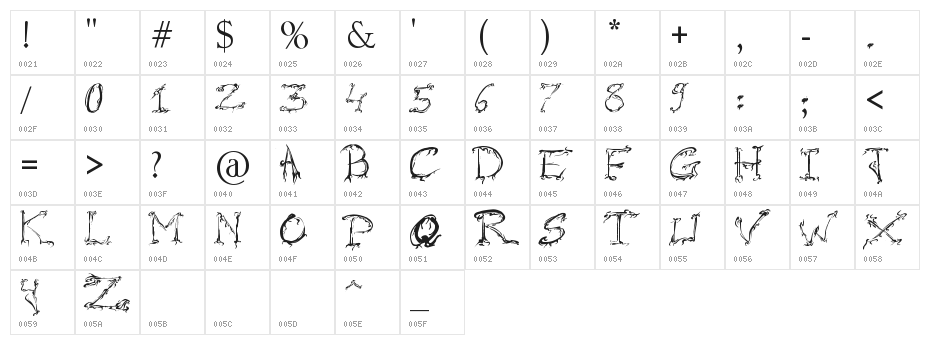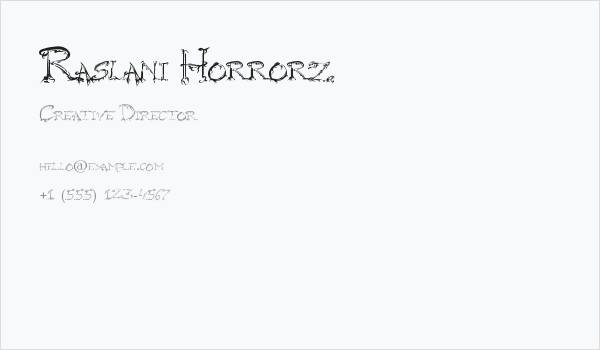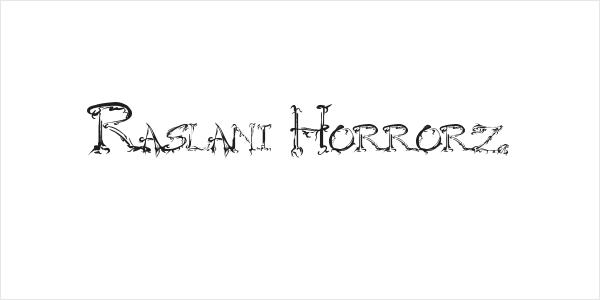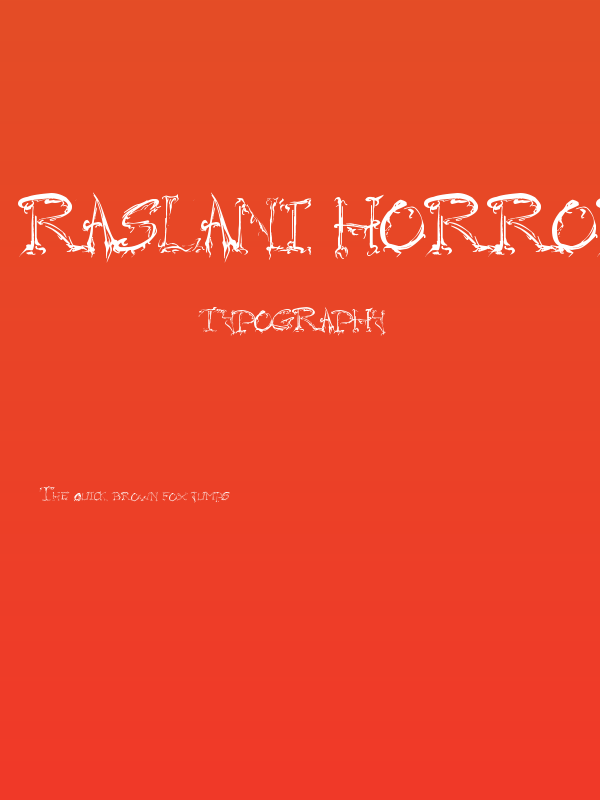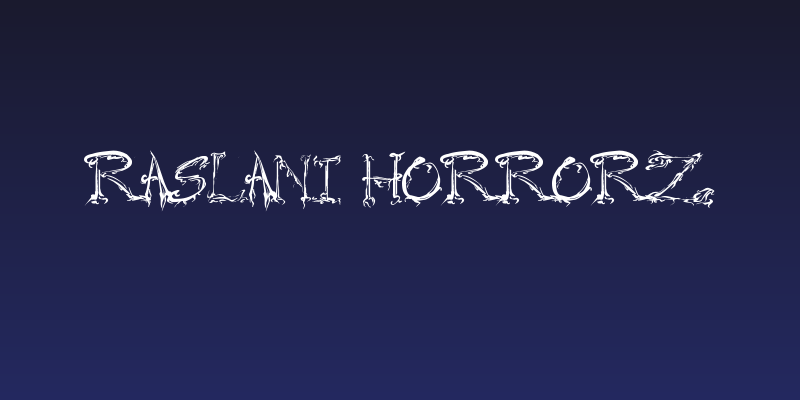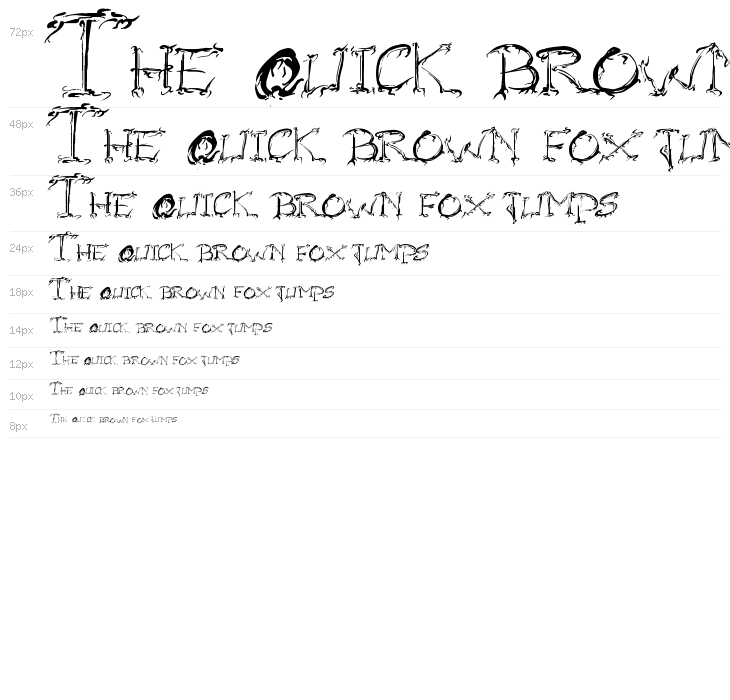
Raslani Horrorz Font
Raslani Horrorz Description
This font features a haunting and eerie design, with each character appearing as if it is dripping or melting. The letters have a jagged, organic appearance, reminiscent of twisted vines or creeping shadows. The uppercase and lowercase letters maintain a consistent style, with exaggerated serifs and irregular edges that enhance the unsettling aesthetic. Numbers and special characters follow the same theme, ensuring a cohesive look across all text. This font is perfect for creating a spooky or horror-themed atmosphere, making it ideal for Halloween events, horror movie posters, or any project that requires a chilling touch.
| Proposed Projects | Ideal for Halloween invitations, horror movie posters, haunted house flyers, and themed event branding. |